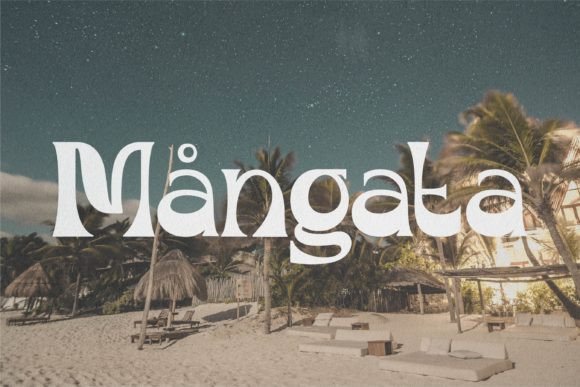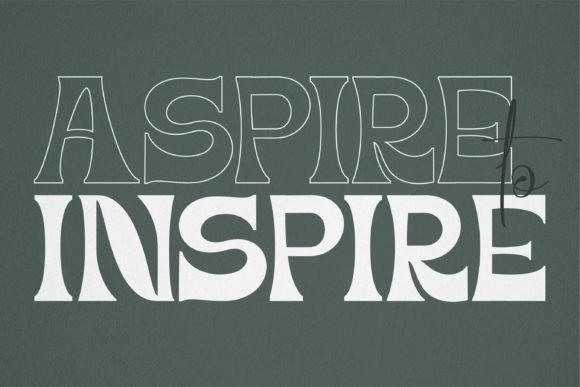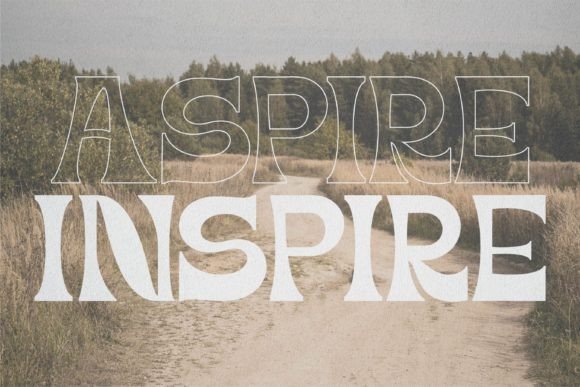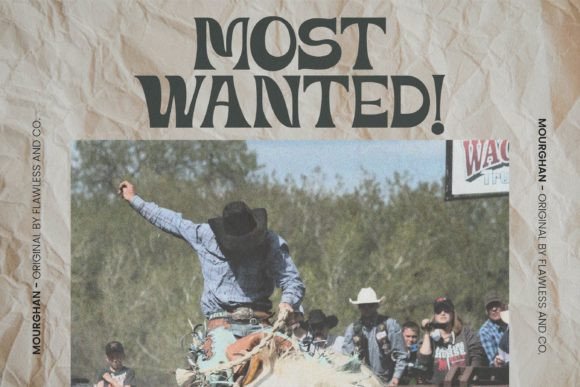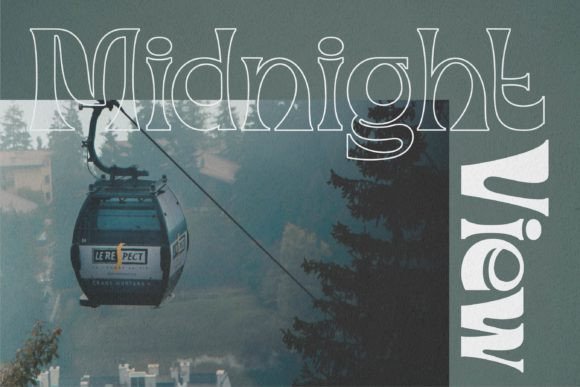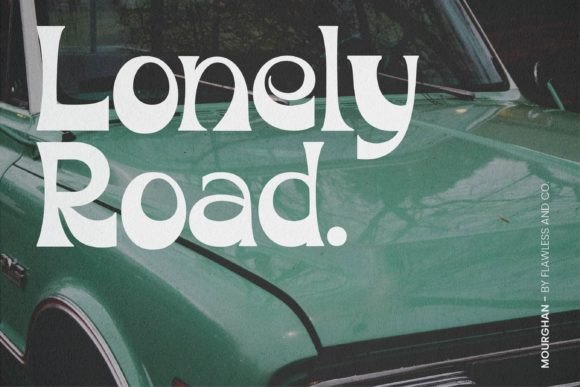
Introduction to Mourghan Font
You know that feeling when you’re about to start a new project, and you’re searching for the perfect font to bring your vision to life? For designers, finding the right design resource can be a game-changer. It’s the difference between a good project and a great one.
That’s where the Mourghan Font comes in – a modern, cool, and extremely interesting display font that impresses through its sophisticated and elegant style. With its high-quality design, it’s the perfect addition to any creative project, whether you’re working on a logo, a poster, or a digital design. And the best part? You can download it for free, giving you the freedom to experiment and push the boundaries of your creativity.
Let’s dive into the world of Mourghan Font and explore its unique features, and discover why it’s a valuable asset for designers looking to elevate their work to the next level.
Key Features of Mourghan Font
- High-quality design resource ideal for creative projects, including digital art and graphic design.
- Unique, modern design with a distinctive aesthetic, perfect for adding a touch of sophistication to any creative project.
- Perfect for use in digital design, including website headers, social media graphics, and advertising materials.
Honest Review: Mourghan Font
As a designer, I’m always on the lookout for high-quality design resources to elevate my creative projects. The Mourghan Font has been a recent addition to my collection, and I’m excited to share my honest review.
- ✨ Unique and elegant design aesthetic that’s perfect for luxurious and high-end projects
- ✨ High-quality font files that ensure crisp and clear typography, even at large sizes
- ⚠️ Limited character set, which may not be ideal for projects that require a wide range of languages or special characters
Overall, I’m impressed with the Mourghan Font and its potential to elevate my design projects. While it may have some limitations, the high-quality design and transparent background make it a valuable resource for any designer.
How to Use Mourghan Font
The Mourghan Font is a versatile and high-quality design resource ideal for various creative projects. Its transparent background makes it perfect for use on images, logos, or graphics.
Tips for Getting the Most Out of Mourghan Font
For optimal results, use the Mourghan Font in conjunction with a high-quality image or graphic. Experiment with different font sizes and styles to create a visually appealing design.
The Mourghan Font is perfect for:
- Brand identity
- Print materials
Alternatives to Mourghan Font
Comparison to Mourghan Font: Aurora Script has a more delicate and refined feel compared to Mourghan Font’s bold and modern look. While Mourghan Font is ideal for modern and edgy designs, Aurora Script is better suited for classic and elegant projects.
Great Vibes is a modern, cursive font that exudes a sense of fun and playfulness. Its transparent background makes it perfect for use on images or designs with complex backgrounds. When to use: Social media graphics, event invitations, playful branding.
Comparison to Mourghan Font: Great Vibes has a more carefree and casual feel compared to Mourghan Font’s bold and modern look. While Mourghan Font is ideal for modern and edgy designs, Great Vibes is better suited for fun and playful projects.
Ostrich Sans is a clean and modern sans-serif font that’s perfect for use in creative projects that require a high level of readability. Its high-quality design makes it ideal for web design, mobile apps, and other digital design work. When to use: Web design, mobile apps, digital design.